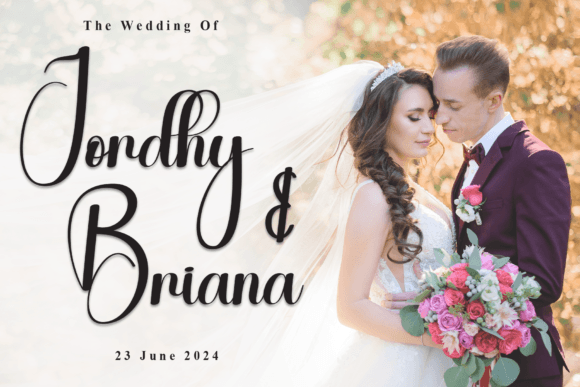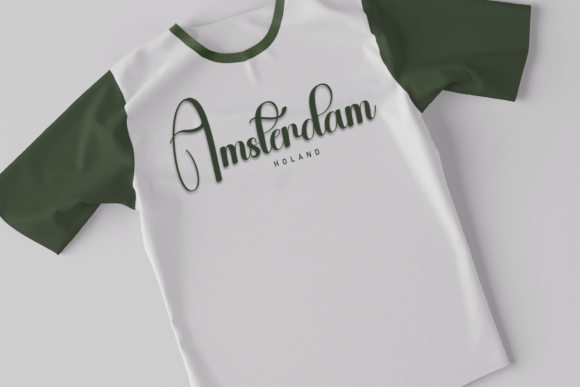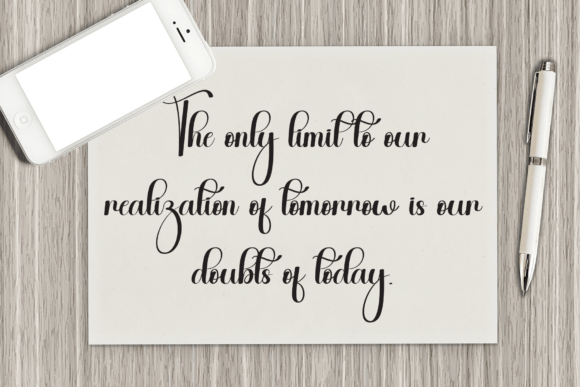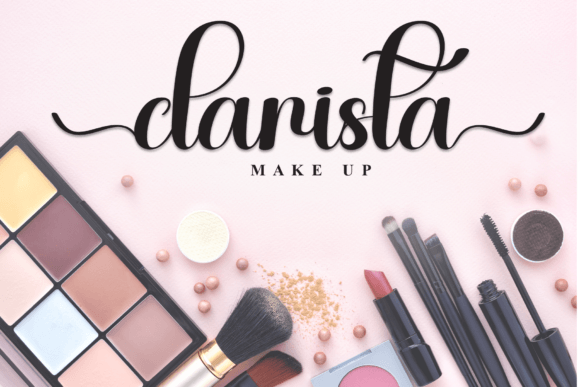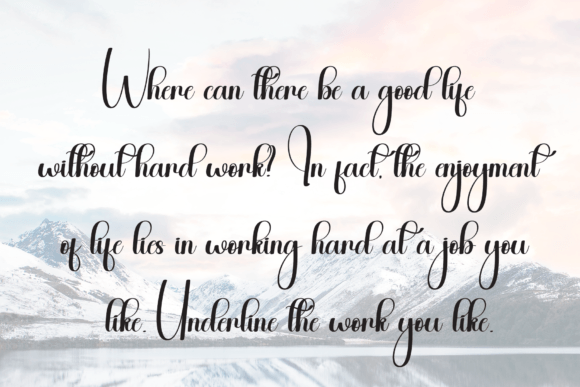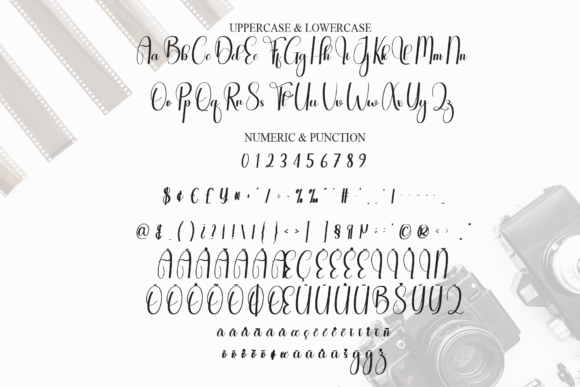
Introducing Camera Font: The Perfect Blend of Sweetness and Friendliness
Have you ever been in the middle of a design project, pouring your heart and soul into it, only to get stuck on one thing: finding the perfect font? I certainly have. It was during one of those moments, working on a wedding invitation design, that I stumbled upon Camera Font. This delightful, personable handwritten display font has been a game-changer for me, and I’m excited to share it with you.
A Personal Design Moment: When Fonts Make All the Difference
I was working on a wedding invitation project, and the client wanted something that captured the playful, joyful spirit of the couple. I had tried several fonts, but none seemed to fit the bill. That was until I discovered Camera Font. Its adorable and playful charm instantly resonated with me, and I knew I had found the perfect fit. With its sweet and friendly vibe, Camera Font brought the entire design to life, infusing it with a hint of joviality that the client loved.
What I Love About Camera Font ✨
• ✅ Adorable and playful charm that’s perfect for wedding invitations, cards, and more
• ✅ Seamlessly blends sweetness and friendliness, making it perfect for designs that need a touch of whimsy
• ✅ Exudes happiness with every stroke, transforming every message into an endearing piece of art
• ✅ Easy to read and understand, even in smaller sizes
• ⚠️ Some letters may appear a bit irregular or imperfect, which can be a deliberate design choice but might not suit every project
• ⚠️ Limited availability of certain OpenType features, which might restrict advanced typographic control
Camera Font was designed with the intention of capturing the joy and playfulness of everyday moments. Inspired by classic cameras and film photography, the font’s creator aimed to evoke a sense of nostalgia and happiness in every stroke. The result is a font that feels both modern and timeless, perfect for designs that need a touch of whimsy.
Q: What makes Camera Font unique?
A: Camera Font’s unique blend of sweetness and friendliness, combined with its playful charm, sets it apart from other fonts.
Q: Is Camera Font suitable for body text?
A: While Camera Font is primarily designed for display purposes, it can be used for short paragraphs of body text. However, for longer texts, a more traditional font might be more suitable.